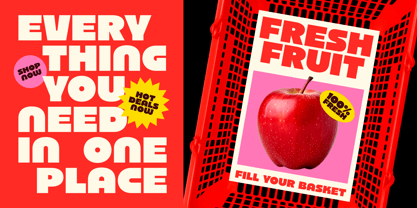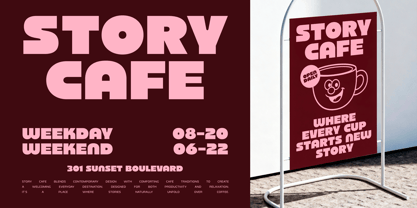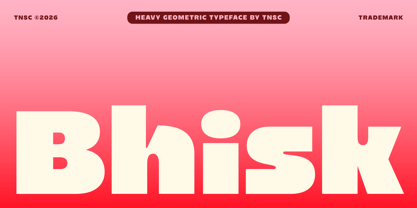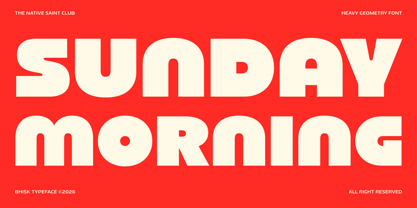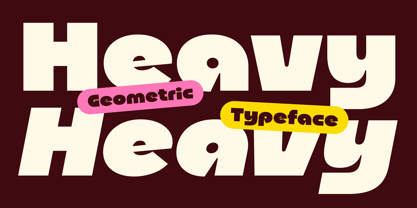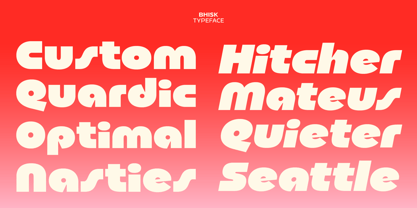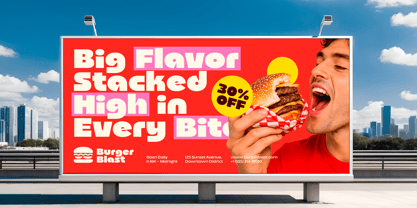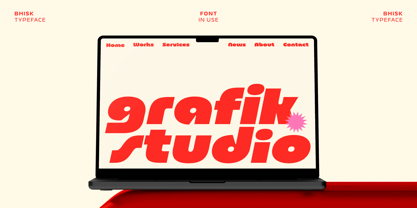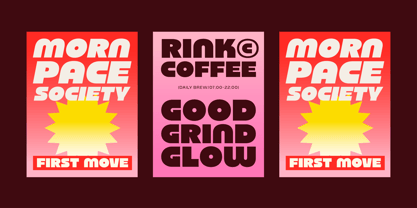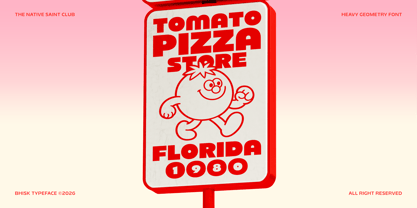
The Bhisk Font Family was designed by Bagas Ferdiansah, Septianto Nugroho and published by The Native Saint Club. Bhisk contains 2 styles and family package options. More about this family
Bhisk, a heavy geometric display typeface with a bold, playful, and modern personality.
Bhisk is built with chunky letterforms, soft rounded shapes, and strong visual rhythm, making it perfect for designs that need a loud and confident look. Its heavy structure gives every word a solid presence, while the rounded details keep it friendly, fun, and easy to use for contemporary branding.
This typeface is great for posters, logos, packaging, café branding, food graphics, social media posts, merchandise, magazine headlines, and any display project that needs a bold statement.
Bhisk comes with upright and oblique styles, giving you more flexibility to create dynamic layouts, playful typographic compositions, and strong headline designs. Enjoy!